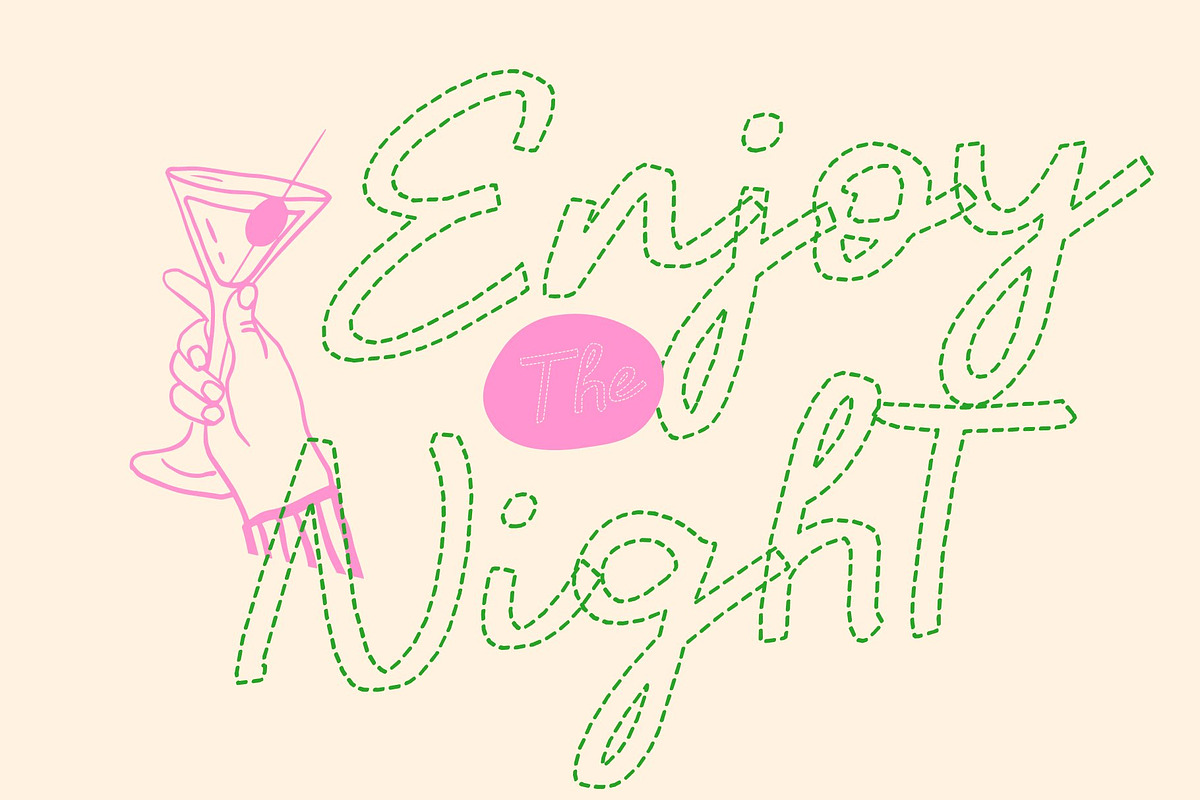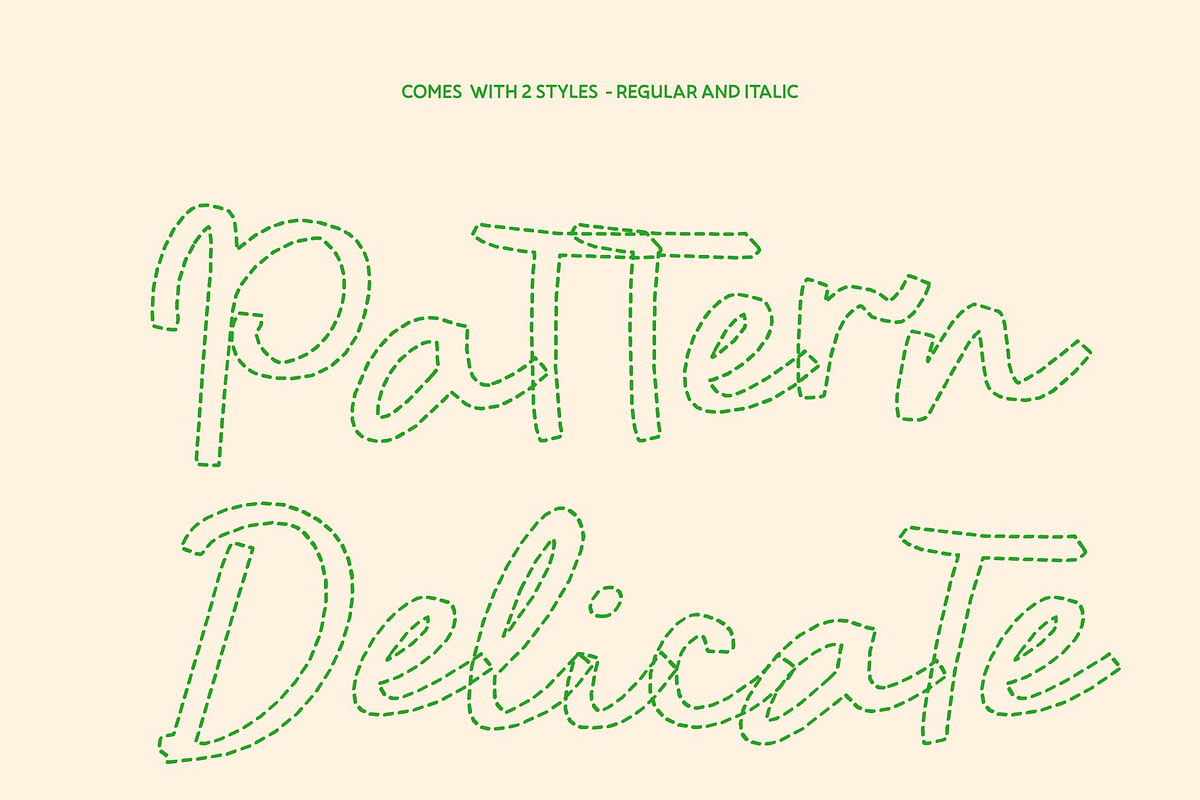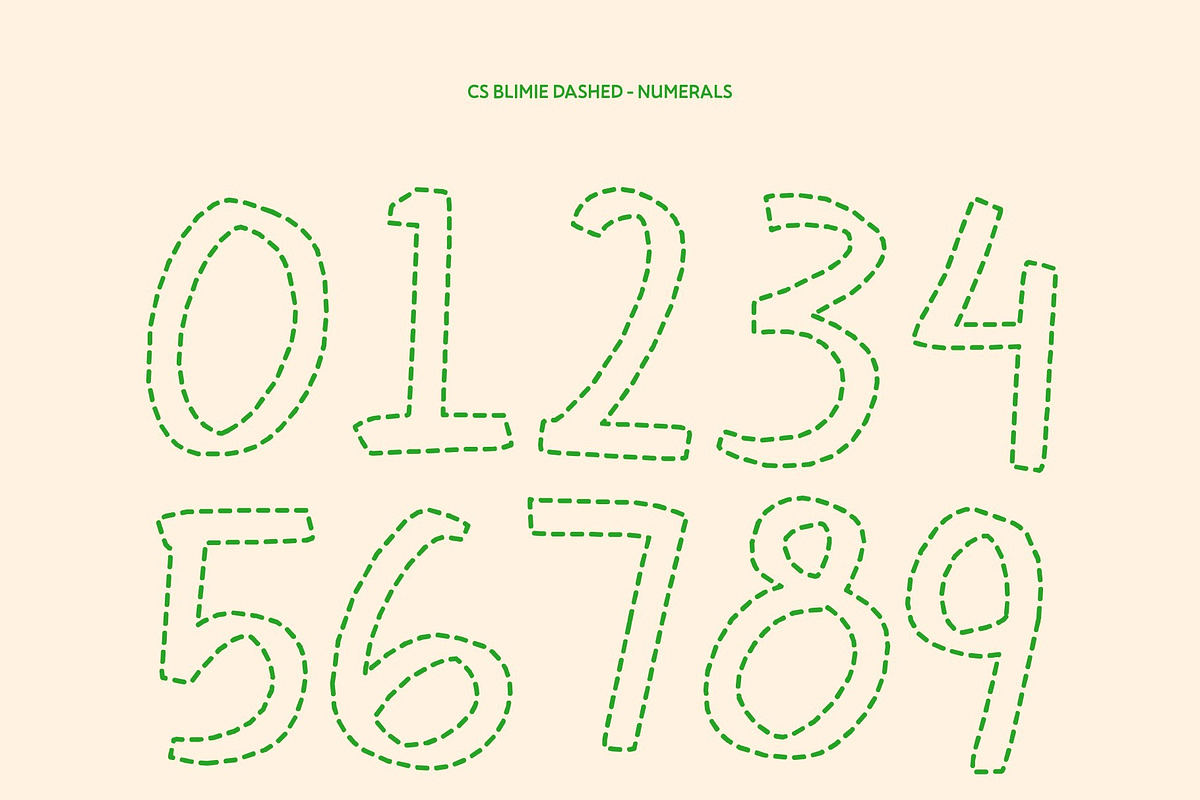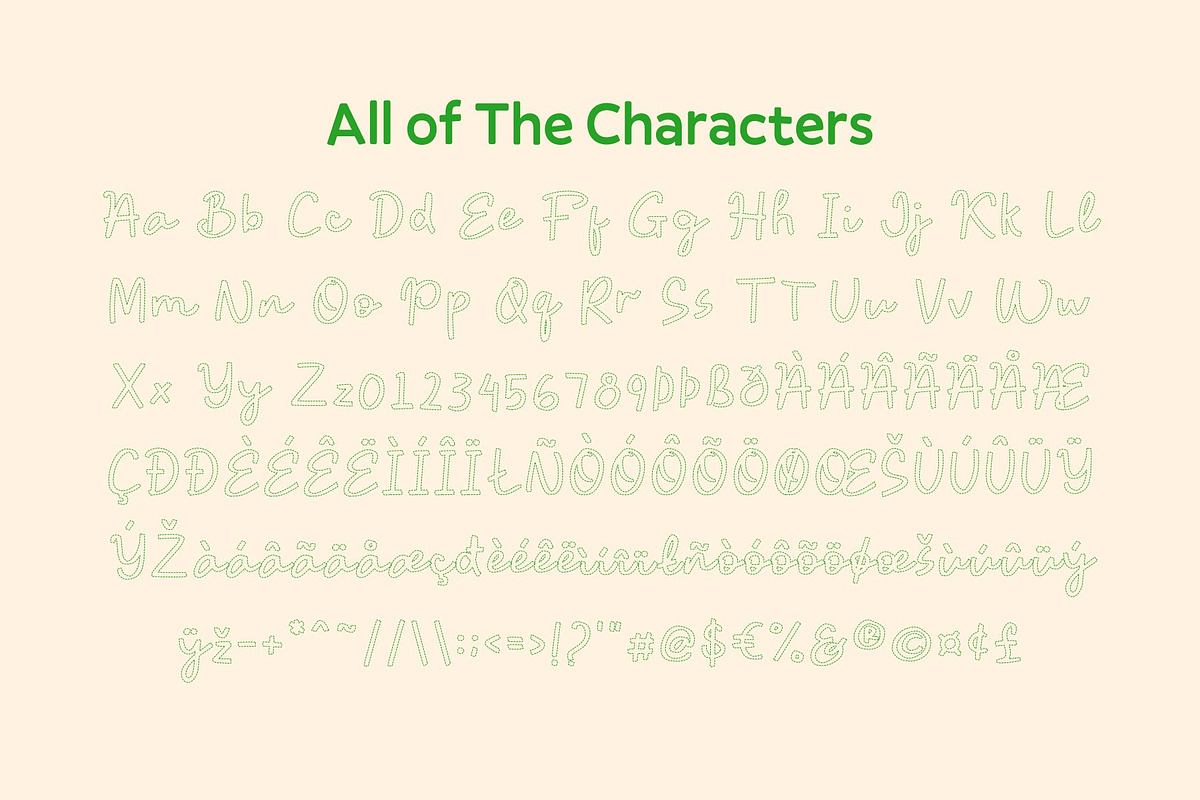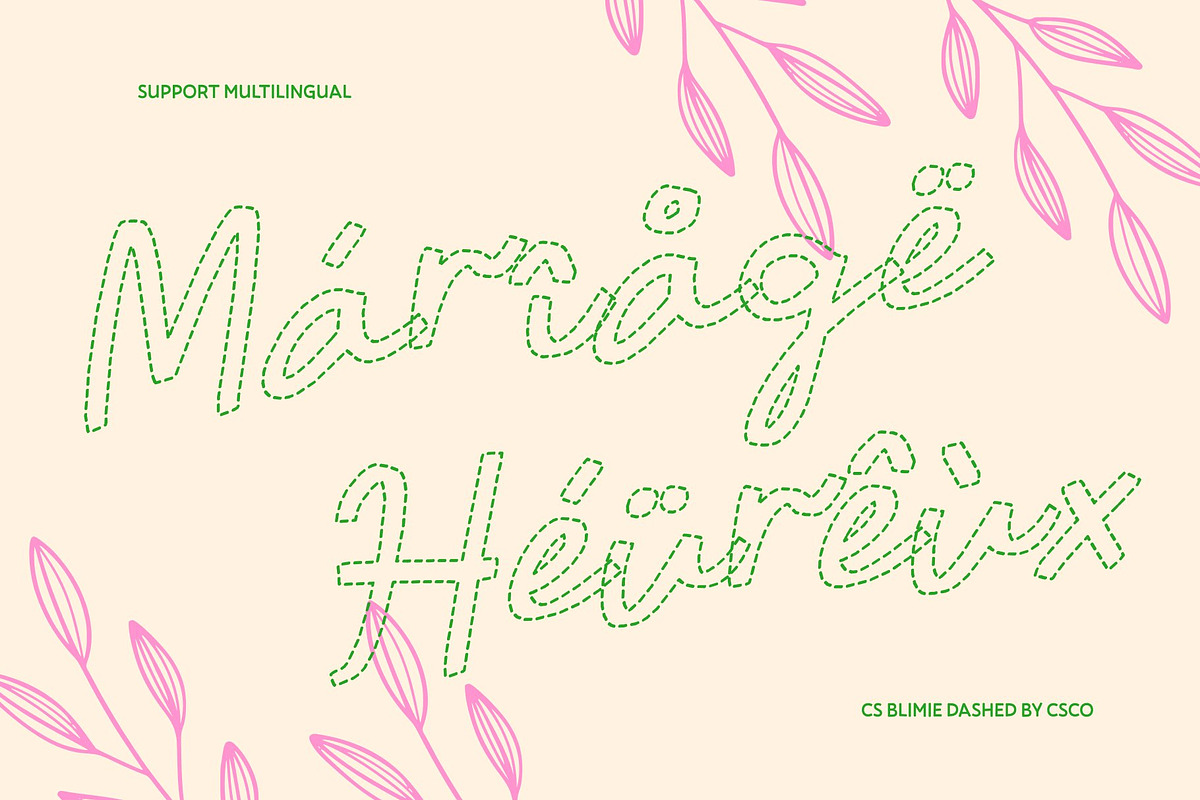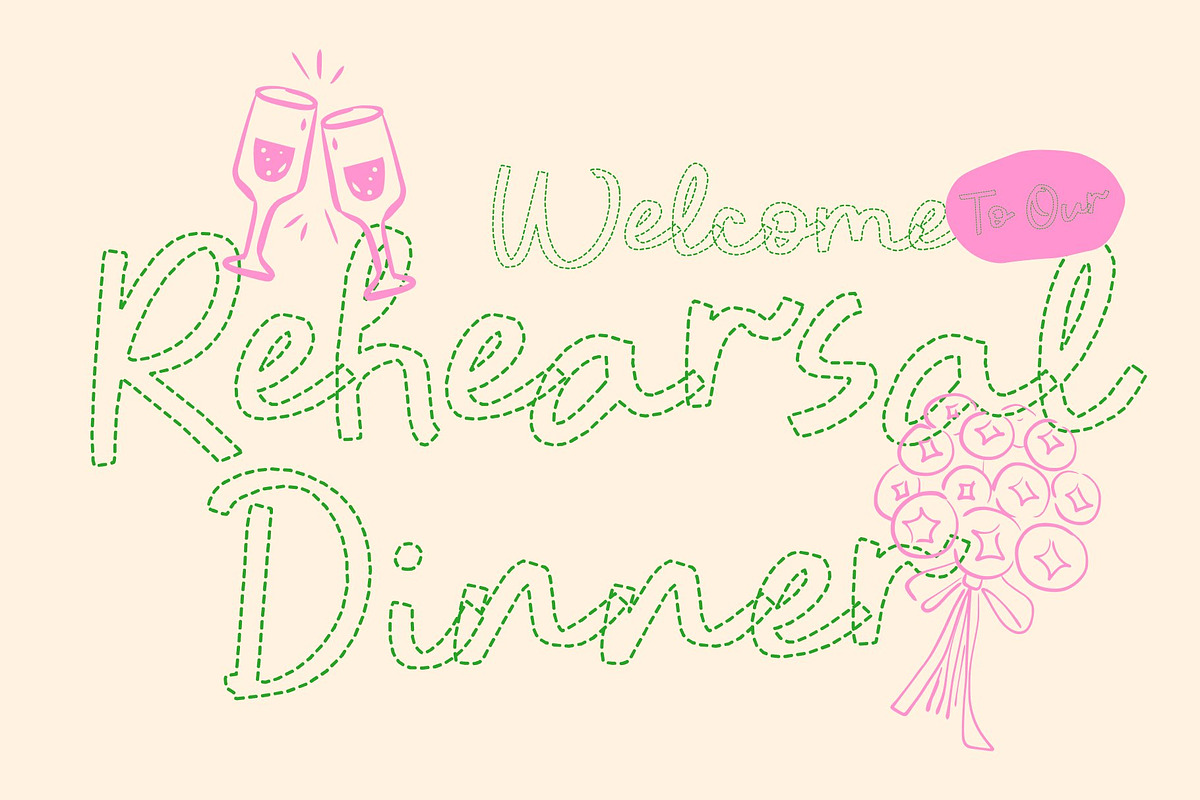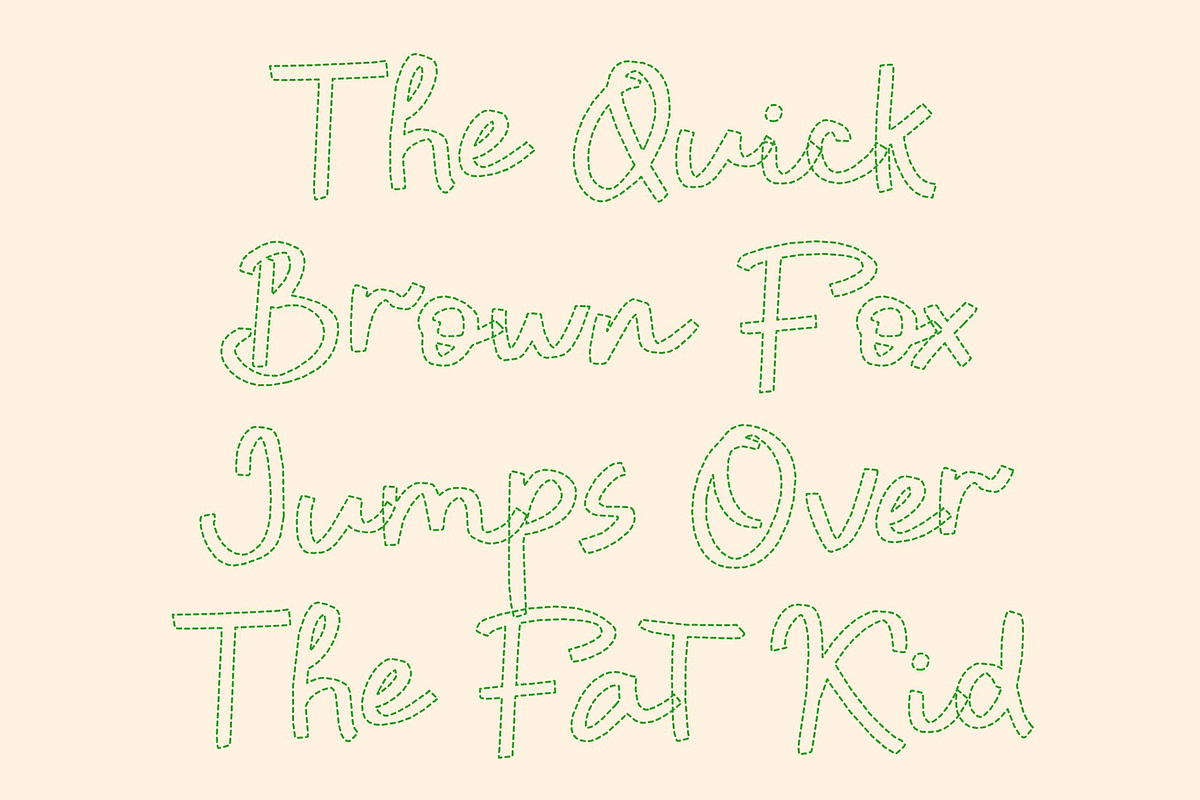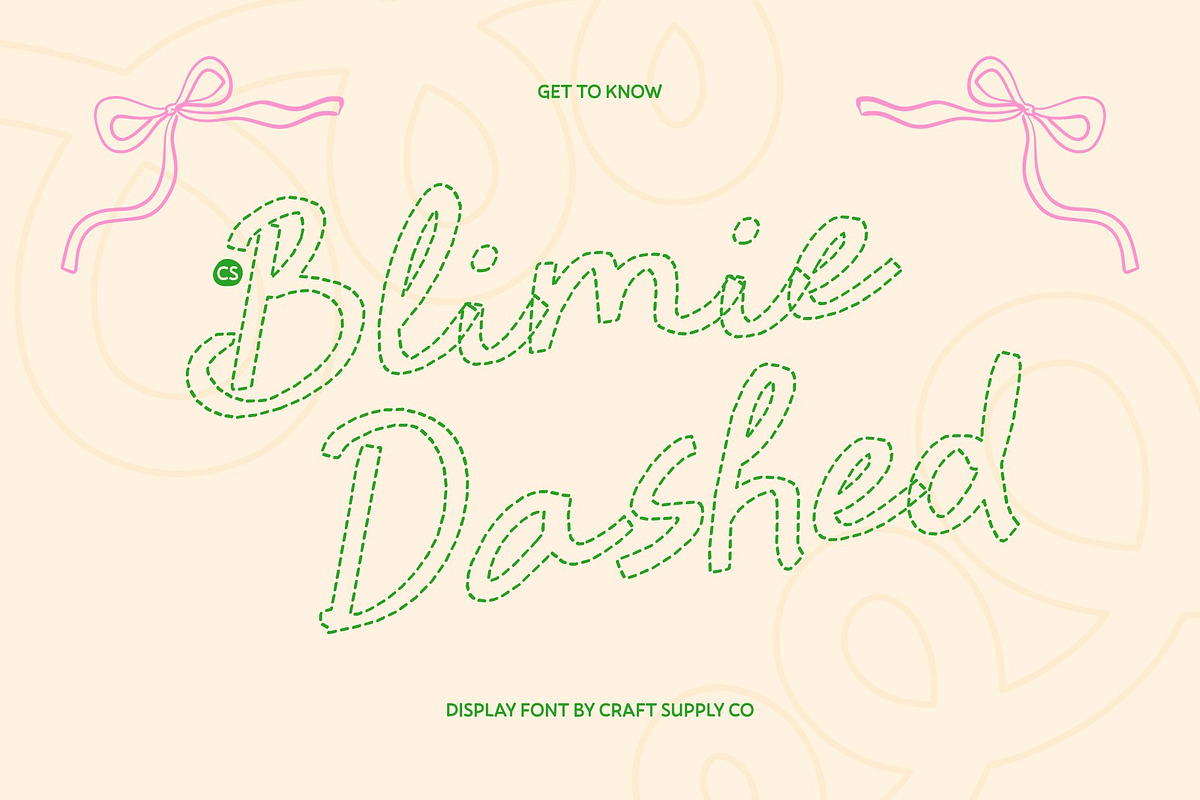
CS Blimie Dashed
CS Blimie Dashed – Romantic Script with Mediterranean Grace
Romantic Flow in a Playful Dashed Style This font transforms a graceful handwritten script into a charming dashed composition. The flowing strokes are reimagined with delicate broken lines, creating a light, airy rhythm that enhances the font’s romantic personality. This dashed texture brings a handcrafted, joyful character while preserving the elegance and warmth of Mediterranean-inspired handwriting.
Handcrafted Texture with Modern Artistic Flair The subtle marker-like texture evolves into a dashed stroke effect, blending organic imperfection with contemporary polish. Each letter feels naturally drawn and slightly whimsical, giving the typeface an authentic handmade look while remaining refined and stylish for modern design needs.
Expressive and Versatile for Creative Projects From wedding stationery to editorial layouts, this font adapts beautifully to projects that need a personal and emotional touch. The broken strokes add visual interest and movement, helping headlines, logos, and quotes feel more lively, artistic, and memorable.
Perfect for Luxury Branding and Romantic Visuals Ideal for fashion branding, boutique packaging, greeting cards, and lifestyle campaigns, this font radiates romance and sophistication. The Mediterranean-inspired elegance combined with a playful dashed finish creates a timeless yet trendy script that feels warm, expressive, and irresistibly chic.